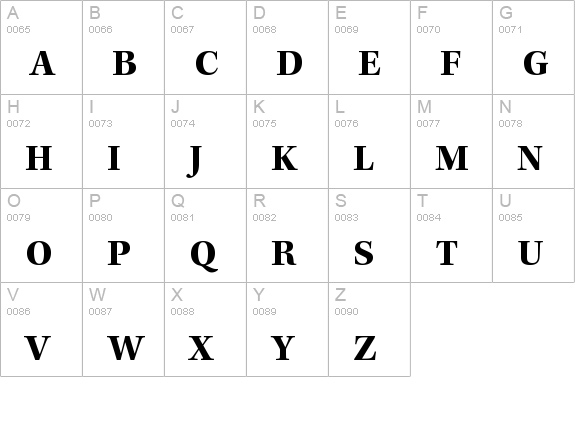
Kepler Std Bold is a strong, high-contrast variant in the Kepler typeface family \xE2\x80\x94 well suited to headlines, attention-grabbing titles, and strong calls-to-action.
Kepler Std Bold is a striking and powerful font that exudes confidence and sophistication. With its bold and commanding presence, this font demands attention and adds a touch of elegance to any design project. Its clean and crisp lines make it highly readable, ensuring that your messages are delivered with clarity and impact. This font is perfect for headlines, logos, posters, and any other design element that requires a strong and impactful visual presence. Its bold weight conveys a sense of authority and professionalism, making it ideal for corporate and business-related projects. But what sets Kepler Std Bold apart is not just its exceptional design – it is also available for free! That's right, you can freely download this font at FontsMarket.com, one of the leading sources for high-quality and versatile fonts. By offering this font for free, Kepler Std Bold allows designers of all levels to access and utilize its impressive features without any cost. So whether you're a seasoned designer looking to enhance your typographic arsenal or a beginner exploring the world of fonts, Kepler Std Bold is a must-have addition to your collection. Its bold and impactful nature, combined with its availability for free at FontsMarket.com, makes it a valuable resource for any design project. Download Kepler Std Bold today and elevate your designs to new heights.